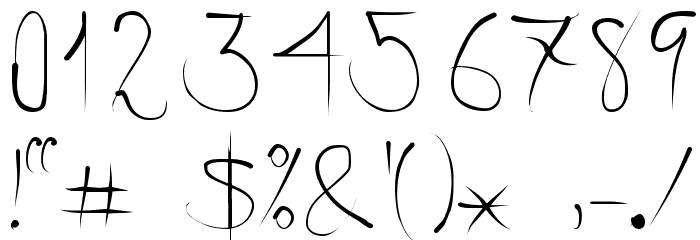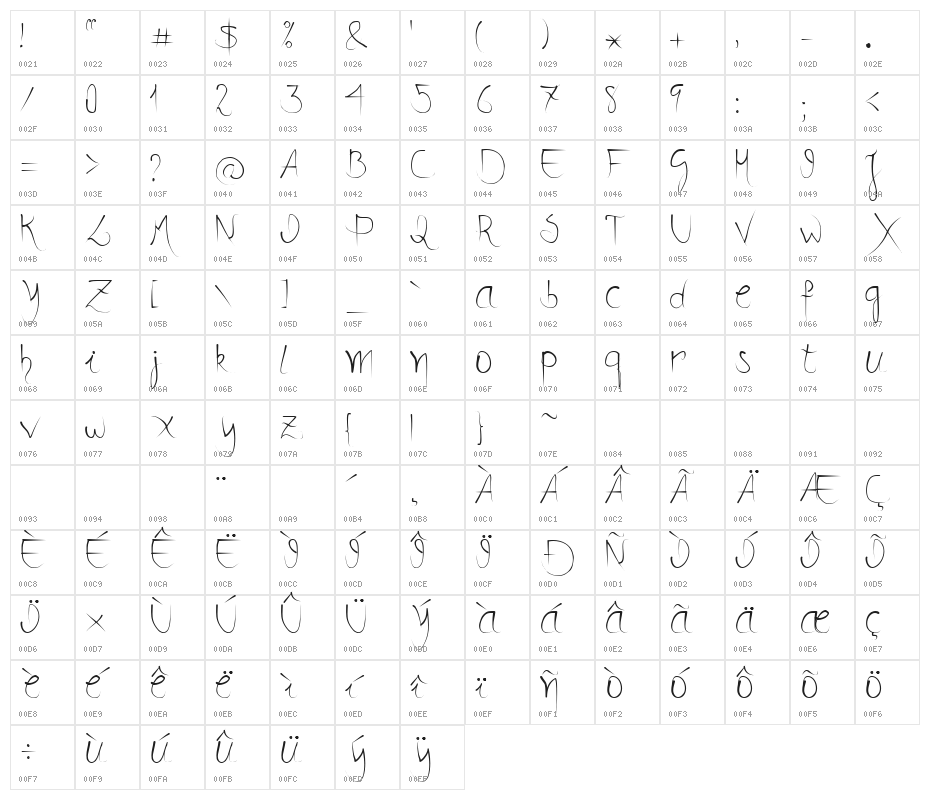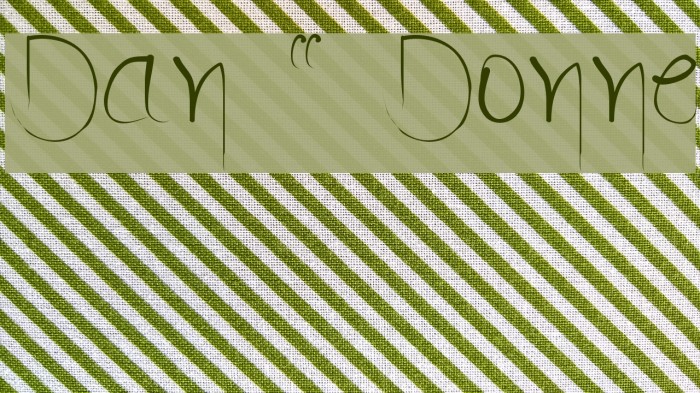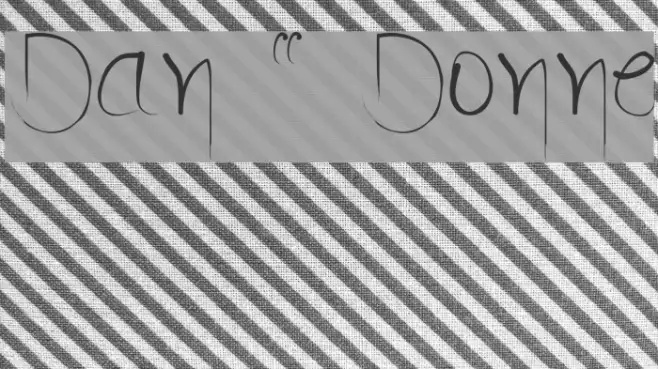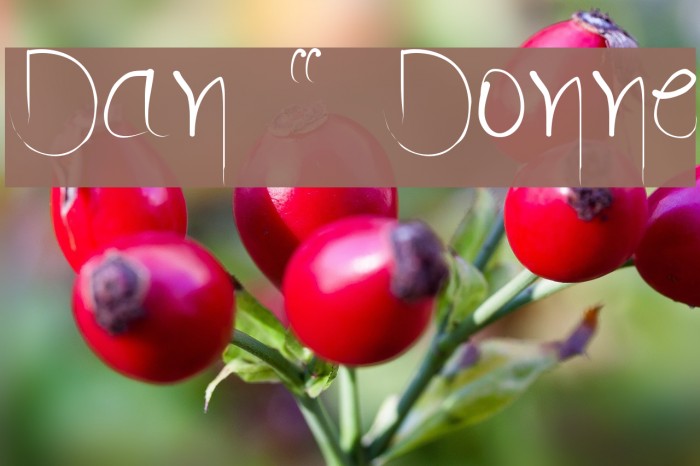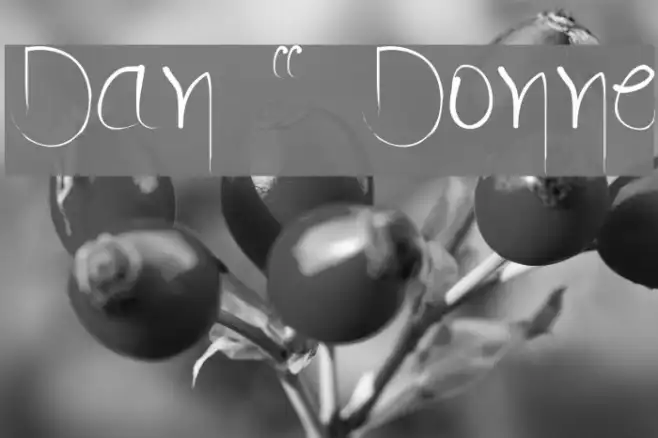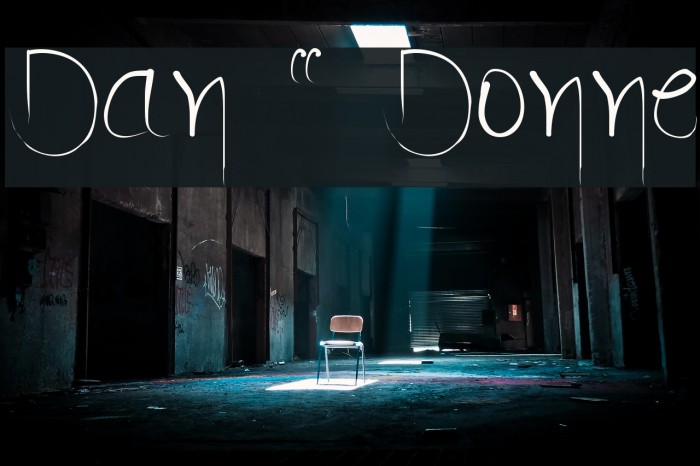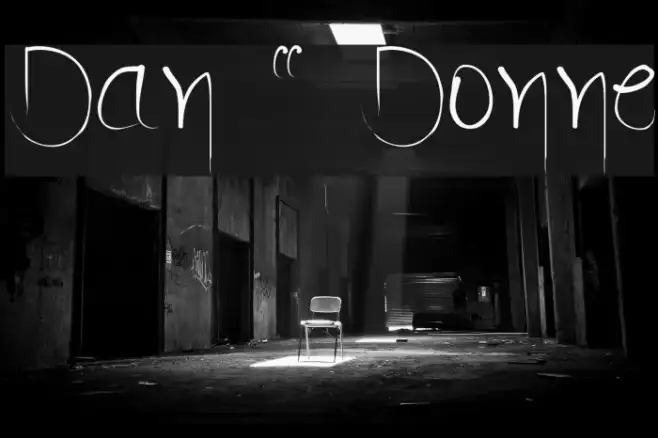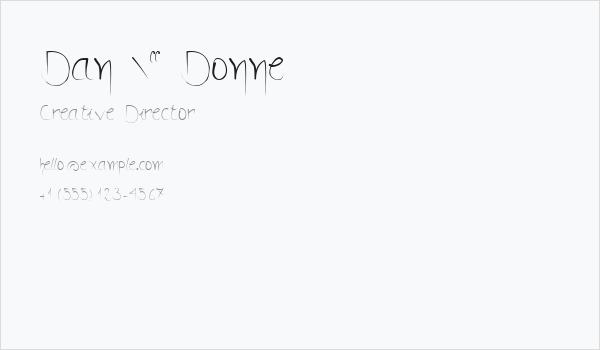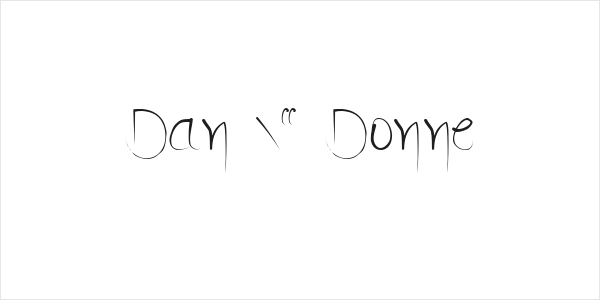
Dan " Donne Font
Dan " Donne Description
This font features an elegant and flowing script style, characterized by its thin, delicate strokes and graceful curves. The uppercase letters are tall and slender, with a slight slant that adds a sense of movement and fluidity. The lowercase letters maintain a consistent style, with some characters featuring loops and swirls that enhance the font's decorative nature. The numerals are uniquely styled, with varying stroke thickness that adds visual interest. Special characters are designed to complement the overall aesthetic, maintaining the font's sophisticated and artistic appearance.